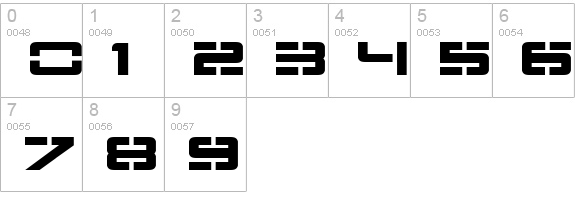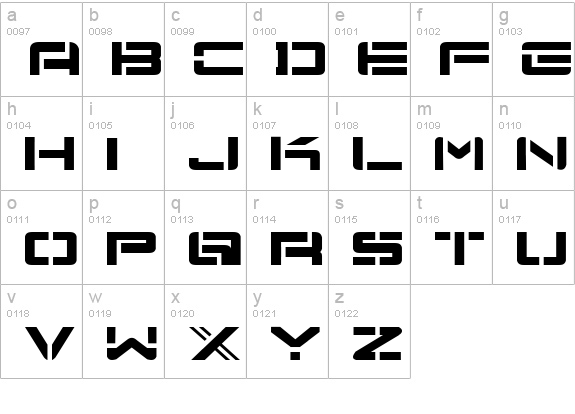
Nu School Munitions Font Details
Introducing the Nu School Munitions font, a bold and dynamic typeface that exudes a sense of strength and modernity. Crafted with precision and attention to detail, this font is perfect for projects that require a powerful and impactful design. With its sharp edges and sleek lines, Nu School Munitions makes a statement and commands attention. What sets Nu School Munitions apart is not only its striking appearance, but also the fact that it is available for free. That's right - you can download this impressive font at FontsMarket.com without any cost. Whether you're working on a branding project, a poster design, or any other creative endeavor, Nu School Munitions is sure to elevate your work and leave a lasting impression. So why settle for ordinary when you can make a bold statement with Nu School Munitions? Download this exceptional font today and take your designs to the next level.